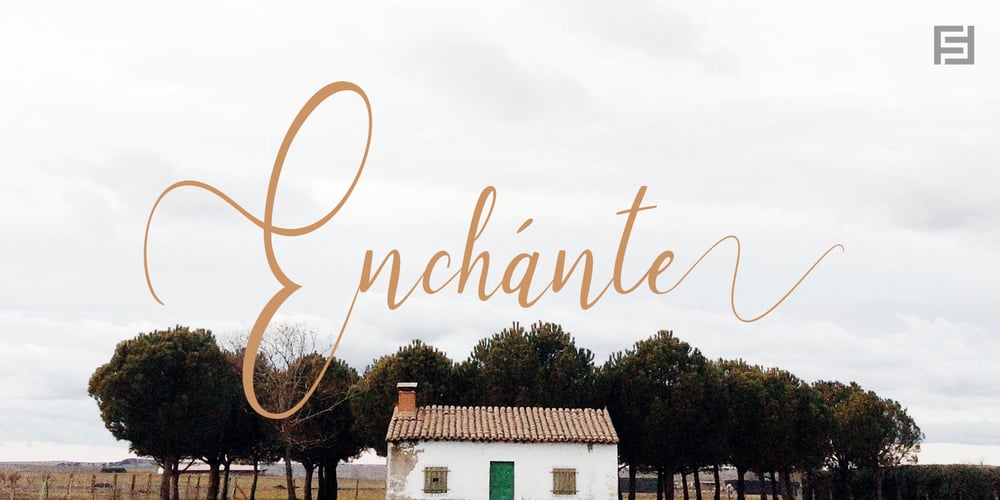
Enchante Script
Enchante Script font
Enchante Script Font Family was designed by Lisha Joseph and published by Designova. Enchante Script contains 2 styles and family package options. Enchante is the handwritten masterpiece typeface for luxury / branding / logotype / wedding invites / greeting cards / promotional graphics. Enchante typeface is completely handmade with more than 300 hours of artistic craftsmanship bringing perfection and aesthetics at its level best. The typeface comes with the following features:OpenType Features & Stylistic SetsThe typeface contains 400 glyphs beautifully handcrafted with perfection.122 stylistic alternatives with 70 lowercase and 52 uppercase letters.61 unique Swashes & Lines arranged in separate font file to enhance ease of use and efficiency.Powerful OpenType features including multi-set stylistic alternatives and ornaments.Includes extended language support including Western European & Central European sets.What You GetThe typeface comes with 2 fonts (Normal, Swashes) so you can easily add decorative elements by simply choosing the Swashes version of the font. The stylistic alternatives and ornaments can be selected via character options within any editing software such as Illustrator, Photoshop, Inkscape etc.Advanced Kerning & Essential Ligatures:We have performed advanced, in-depth kerning to make sure the font looks amazing on all possible letter combinations.